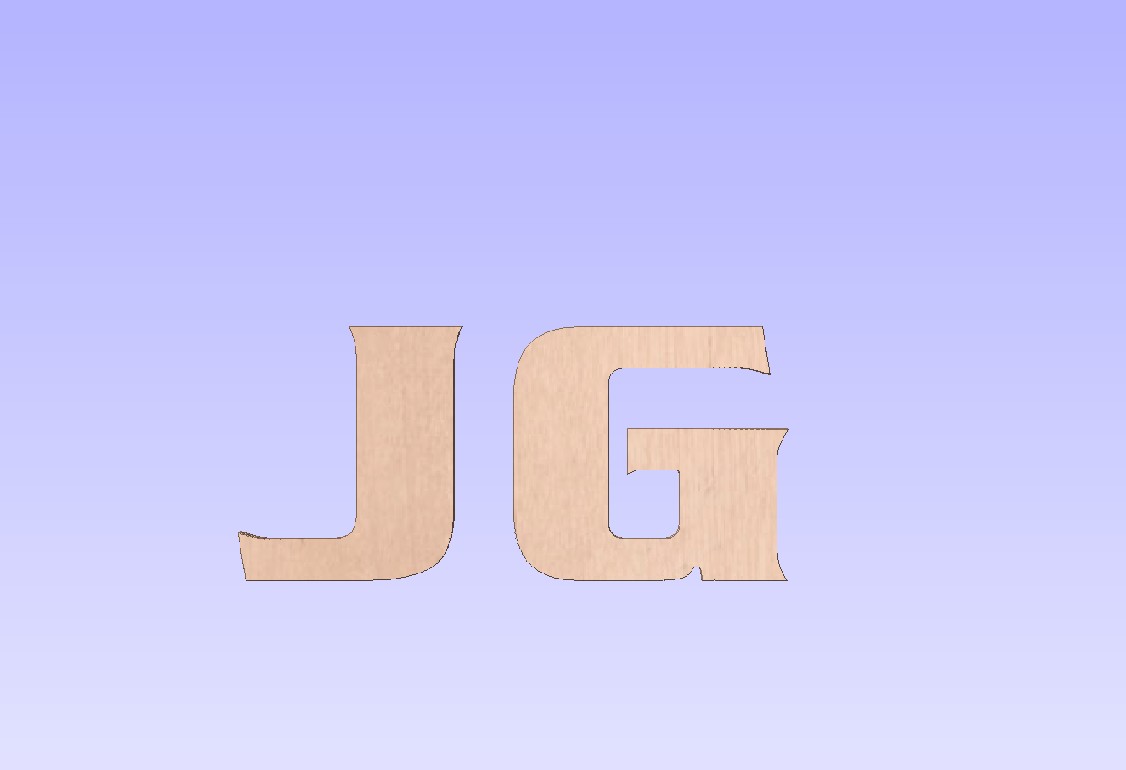
Why can't you use any suitable font and then just change the outlines to geometries and then modify the bottoms to make them freestanding. the same applies to linking letters together to make words. If necessary I can draw something for you to show what I mean. Martins point about centre pieces would of course still apply and you would have to include supports or styalise the font. G.
I started to reply some time ago, but was dragged away part way through and I see Martin has just said something very similar!!
I just thought there might be a font out there that was done already its not as easy as i thought it would be
"Serpentine Bold" font should be ok for this as well
thank you very much just thats just what i been looking for
Actually it's very easy issue, some one ( a designer ) can help to correct the down edge ( Curve ) outline of the font's letters. so all letters will have a straight edge ( like "C" in the picture you added before ) .
hi i just had ago in ms word but its just not right at all would you mind showing me how to do it please thanks tom
Any font can be 'added' to in a cad program, if none of the other replies are what you are looking for then pm..